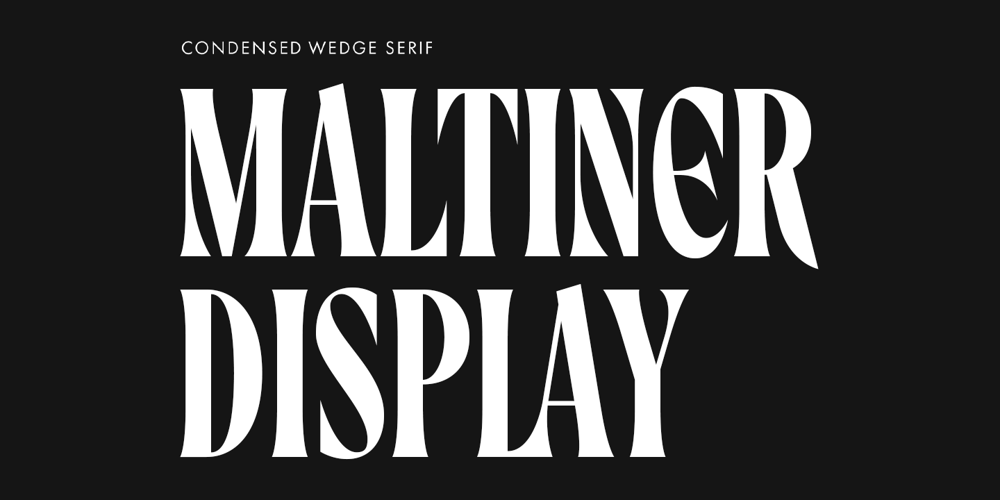
Maltiner Display Font Family was designed by Ahmad Ramzi Fahruddin and published by Arterfak Project. Maltiner Display contains 1 styles and family package options. Introducing Maltiner Display: A versatile, elegant, and sophisticated condensed serif font inspired by classic typography and newspaper headlines. Designed to excel in display settings, Maltiner Display prioritizes typographic excellence, offering a bold yet refined aesthetic.With unique letterforms and sharp edges, Maltiner Display provides ligatures and special characters, the perfect choice for luxury projects.